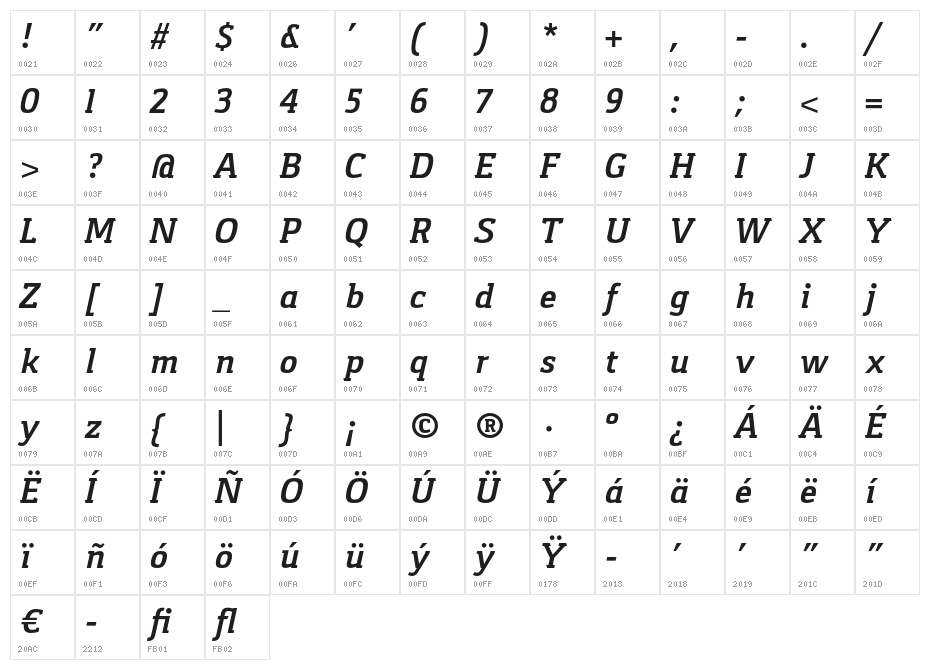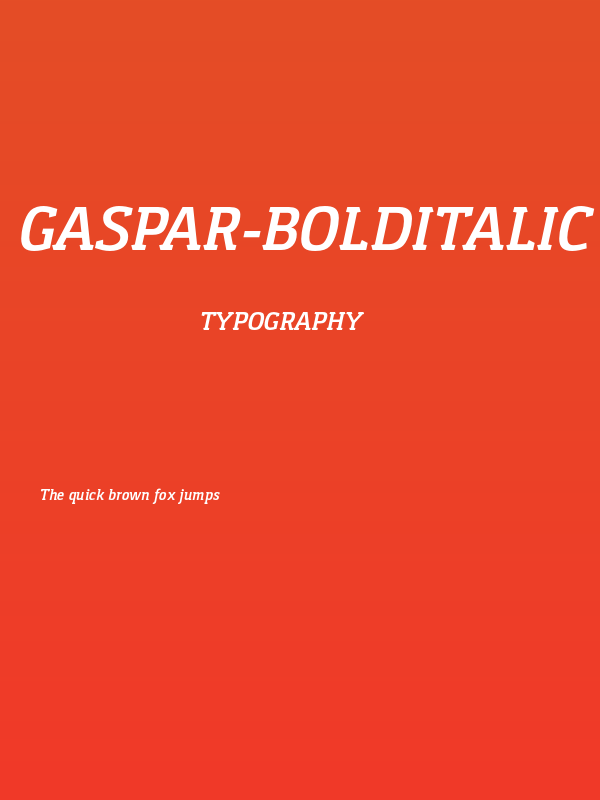
Gaspar-BoldItalic Font
Gaspar-BoldItalic Description
This font features a bold and italic style, combining strength with elegance. The characters are slightly slanted, giving a dynamic and forward-moving appearance. The strokes are consistent and bold, providing a strong visual impact. The uppercase letters are tall and commanding, while the lowercase letters maintain readability with a slight curve. Numbers are clear and distinct, making them suitable for various applications. Special characters are well-defined, adding versatility to the font's use.
| Proposed Projects | Ideal for branding, advertising, and editorial design where a bold statement is needed. |